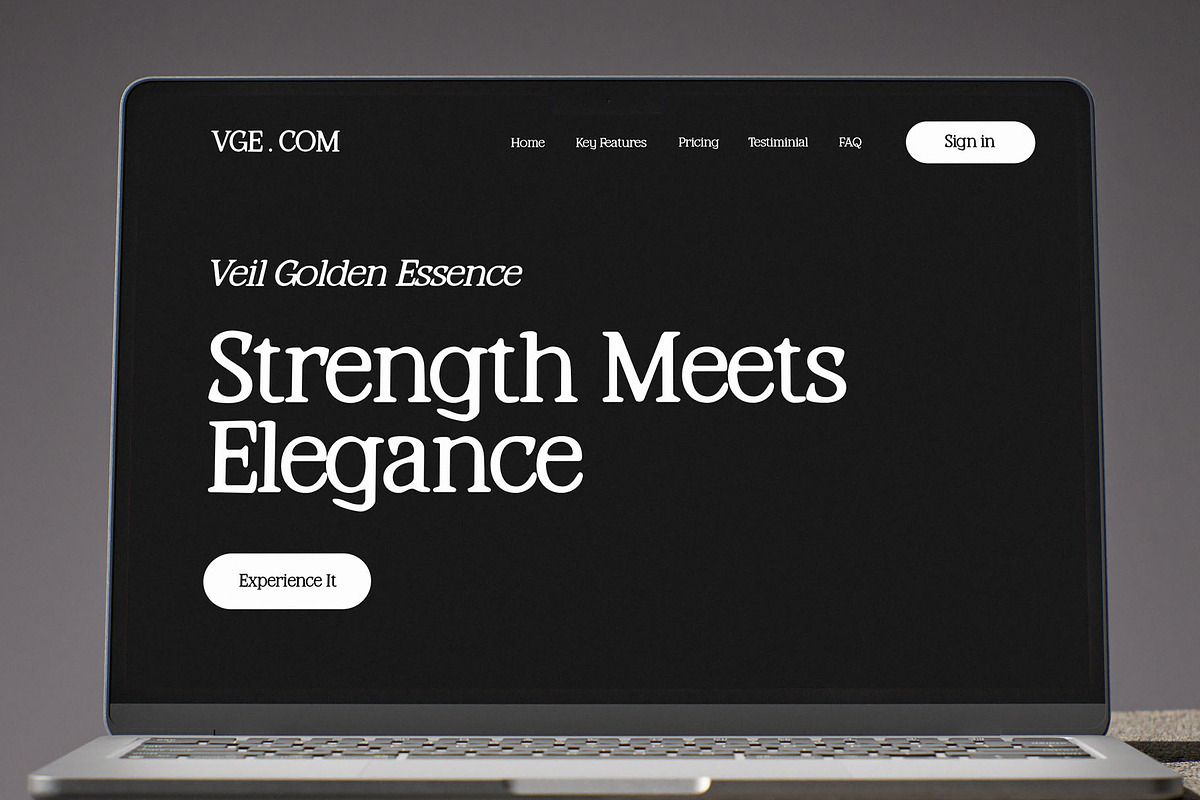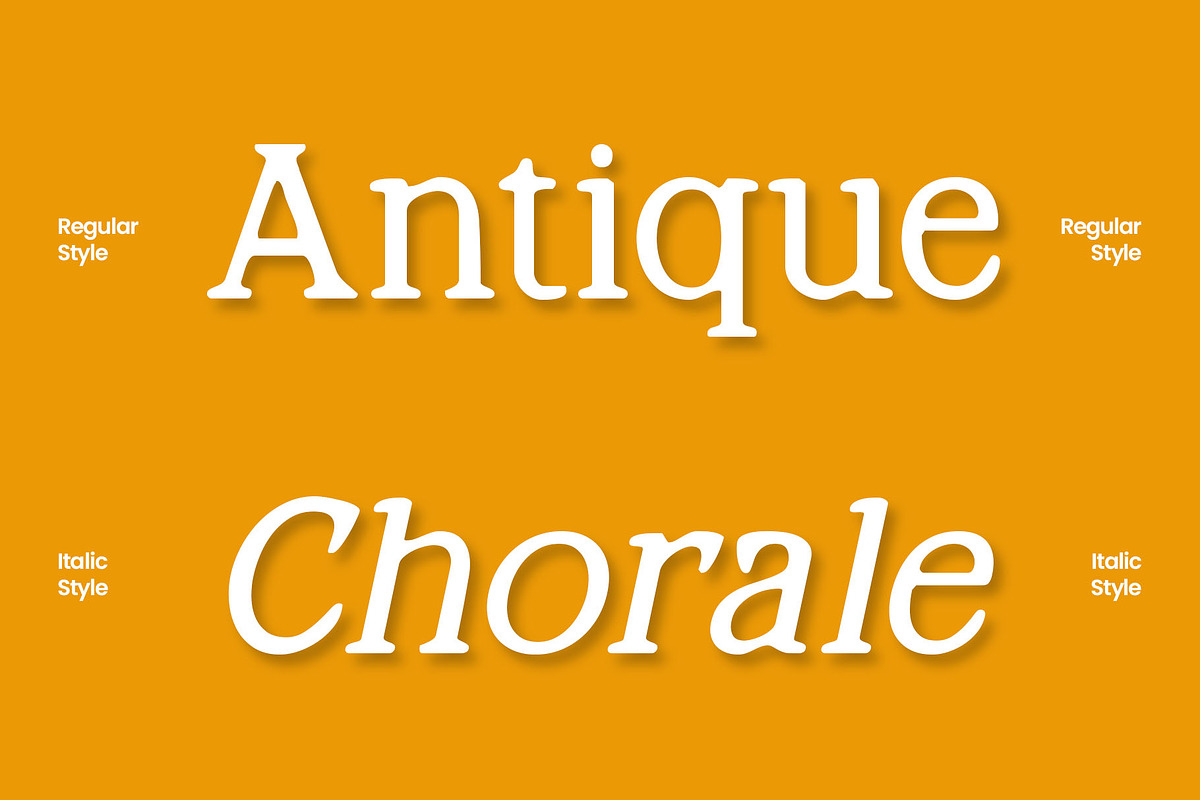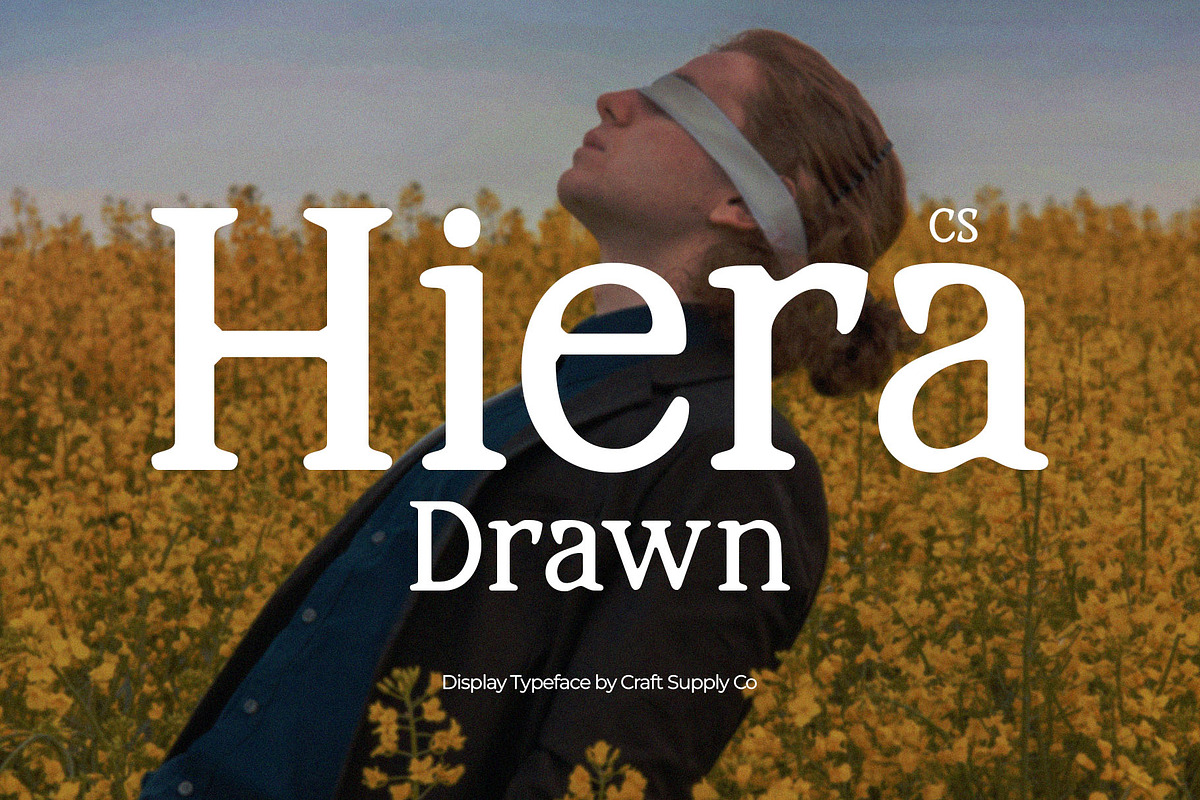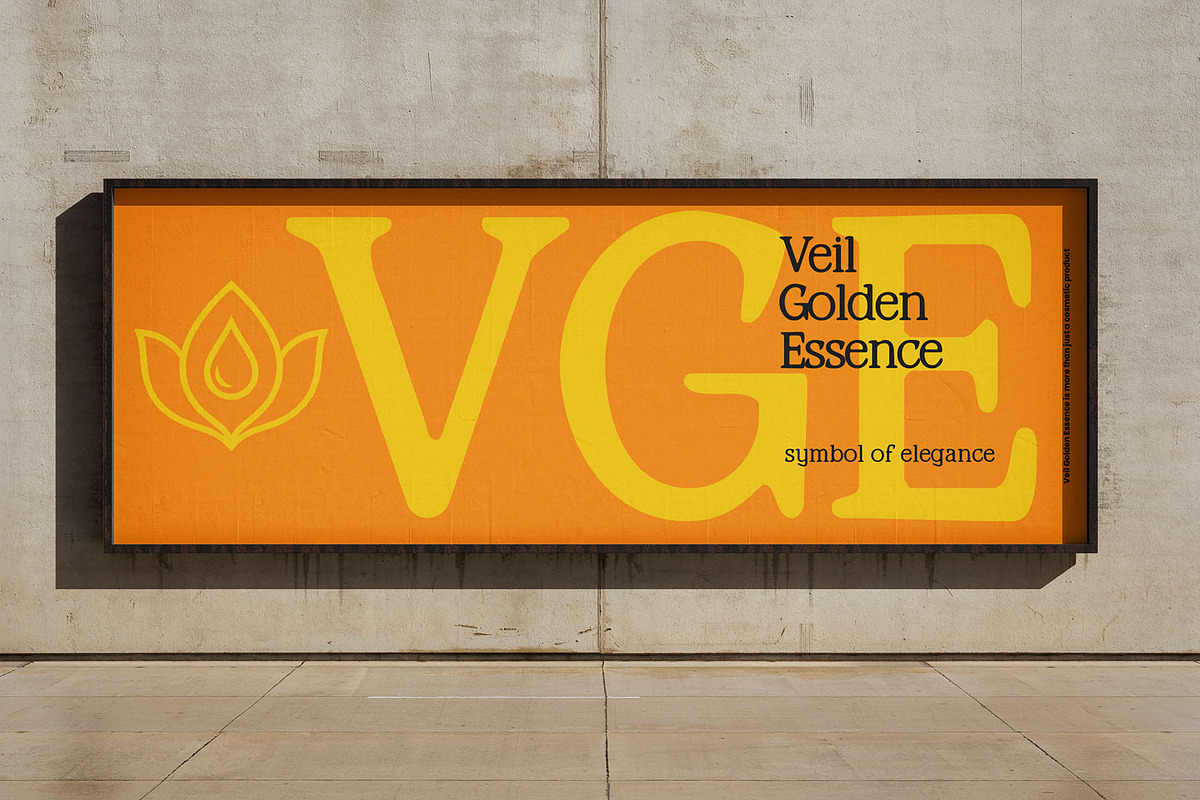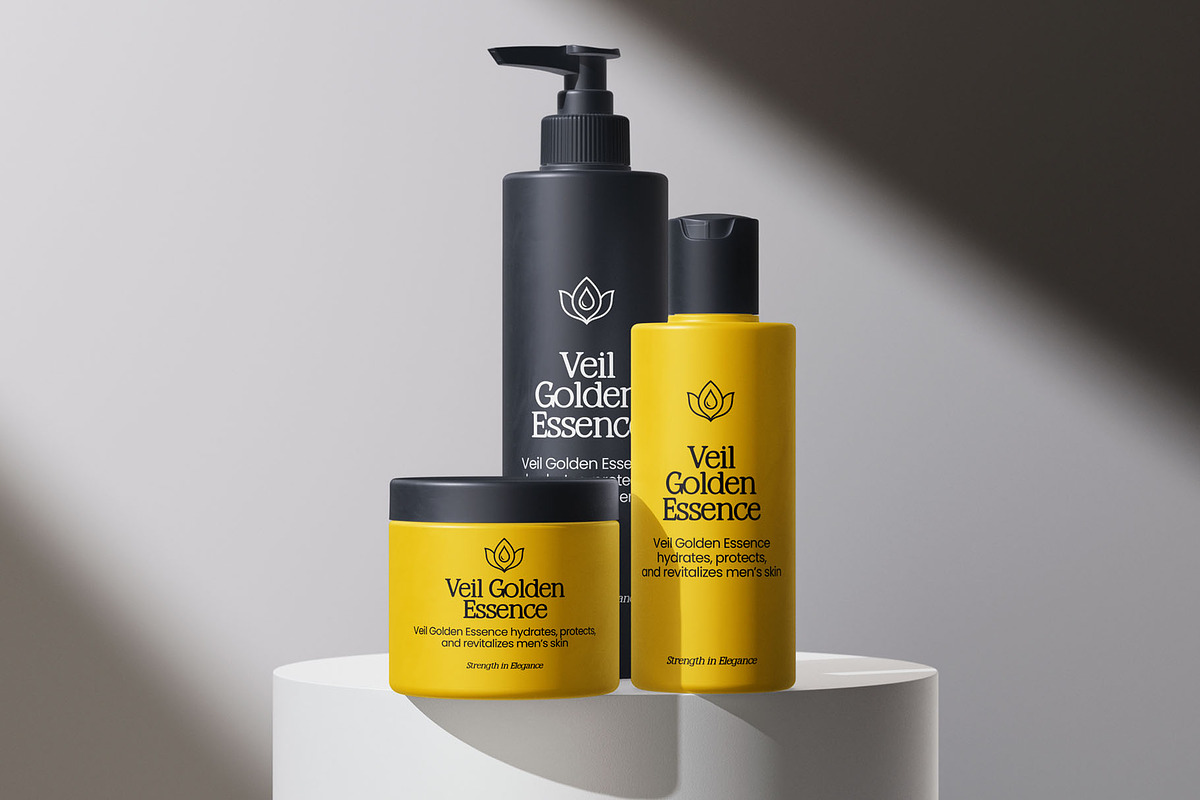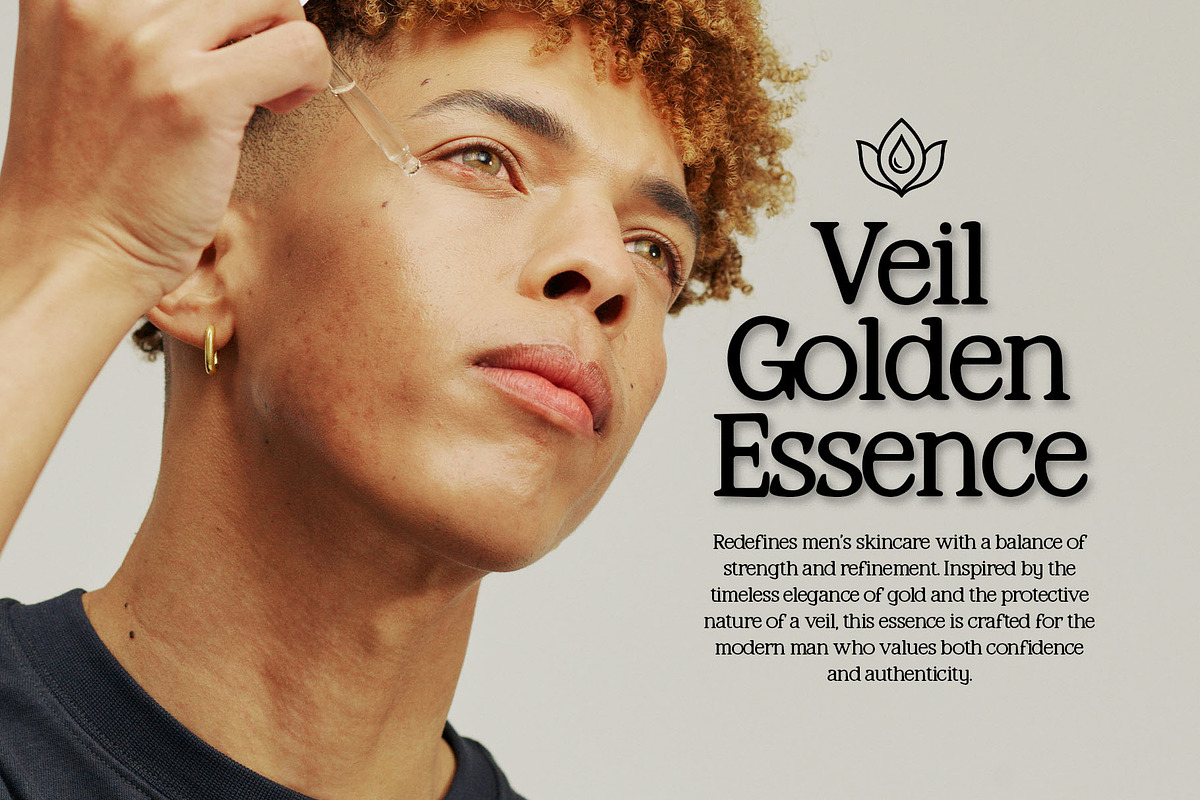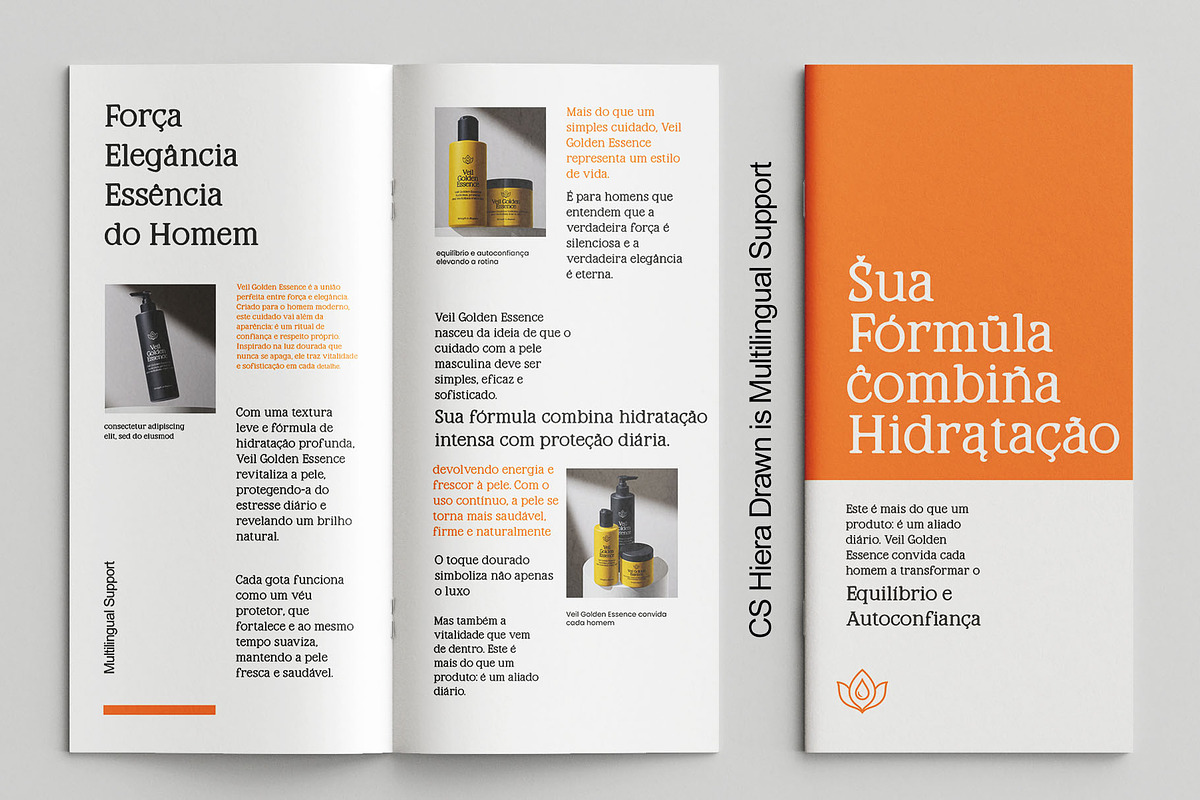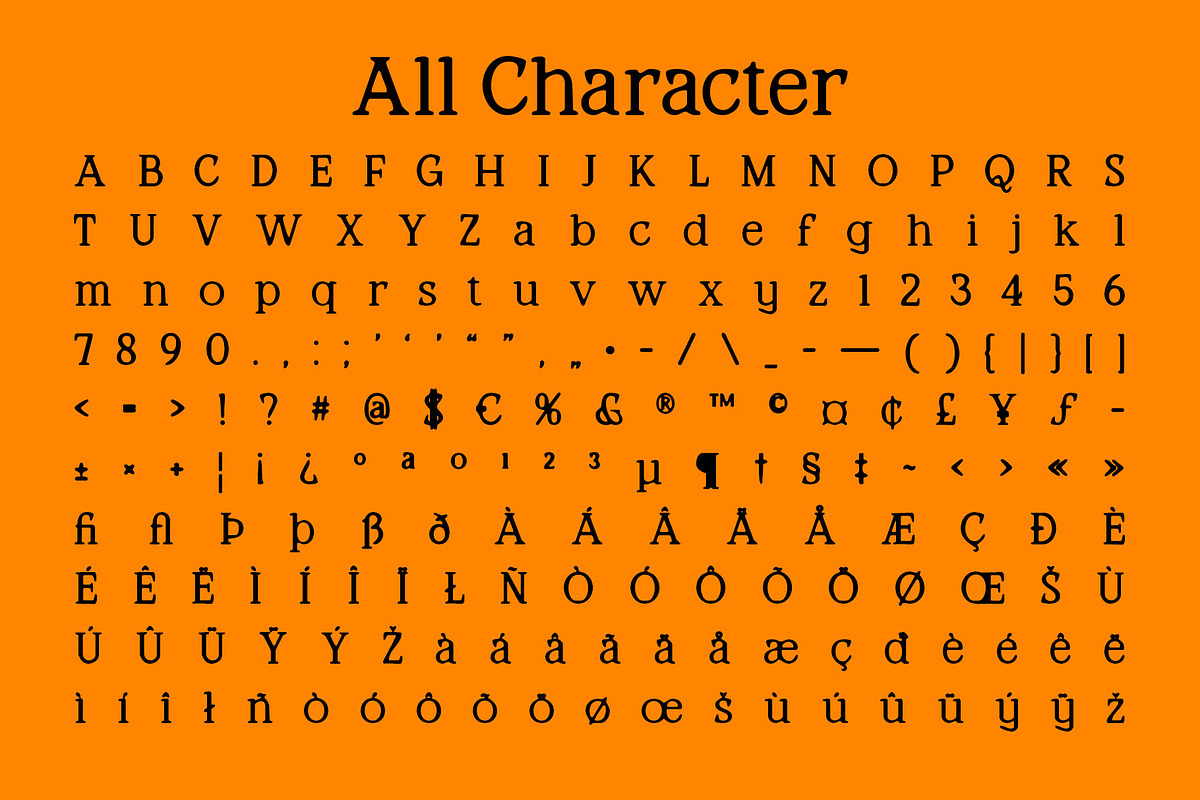
CS Hiera Drawn
CS Hiera Drawn – Relaxed Hand-Drawn Serif Font: Serif Font with Handwritten Texture
Relaxed and Organic Style CS Hiera Drawn is a serif font that embraces a drawn, handcrafted style. Each character carries a subtle handwritten texture, giving the font a relaxed and approachable personality. This organic detail makes it stand out from traditional serif fonts, adding warmth and uniqueness to every design.
Clear Serif Letterforms Despite its hand-drawn quality, CS Hiera Drawn maintains clarity with well-defined serif characters. This balance of legibility and artistic flair ensures it can be both expressive and practical, making it suitable for a variety of professional and creative uses.
Perfect for Branding and Design Projects From skincare products and beauty branding to business cards and packaging, CS Hiera Drawn adapts beautifully to projects that value authenticity and creativity. Its textured style conveys trust and originality, making it a great choice for modern, personality-driven branding.
Versatile and Stylish Typeface Beyond branding, CS Hiera Drawn also works well in editorials, lifestyle projects, and decorative layouts. Whether used for logos, headlines, or supporting text, it delivers a relaxed yet stylish touch that elevates any visual composition.